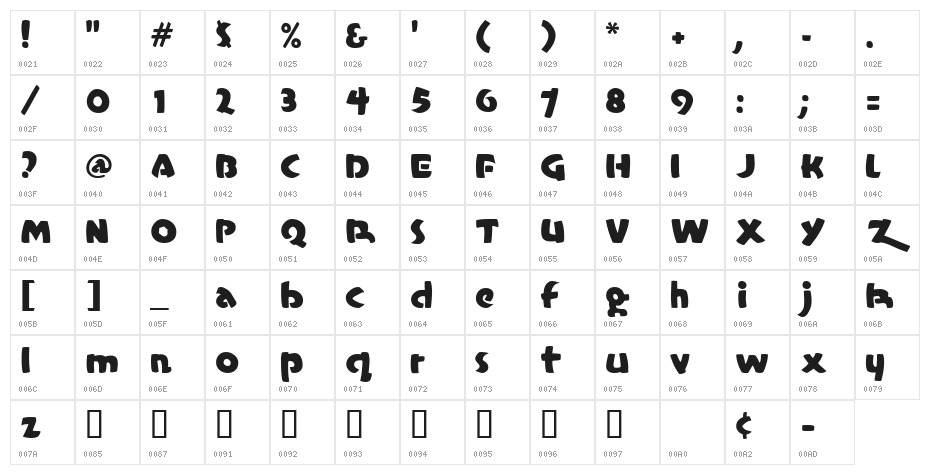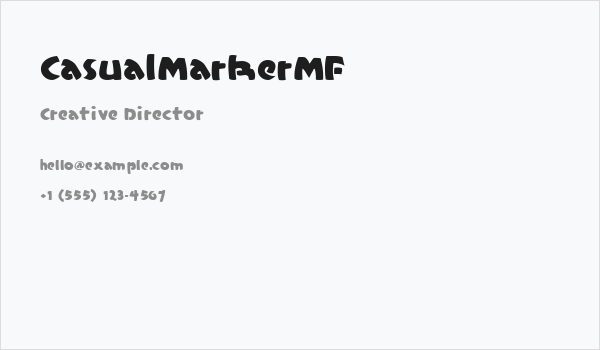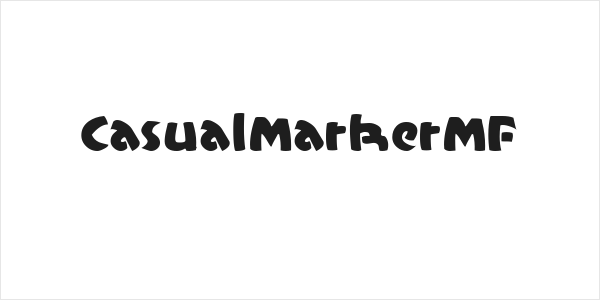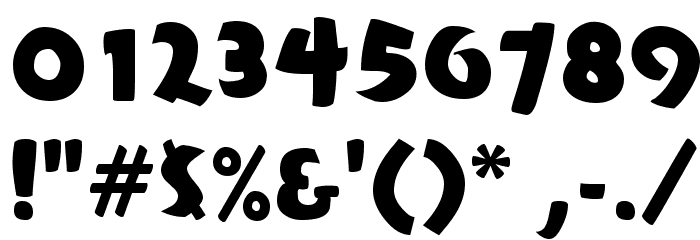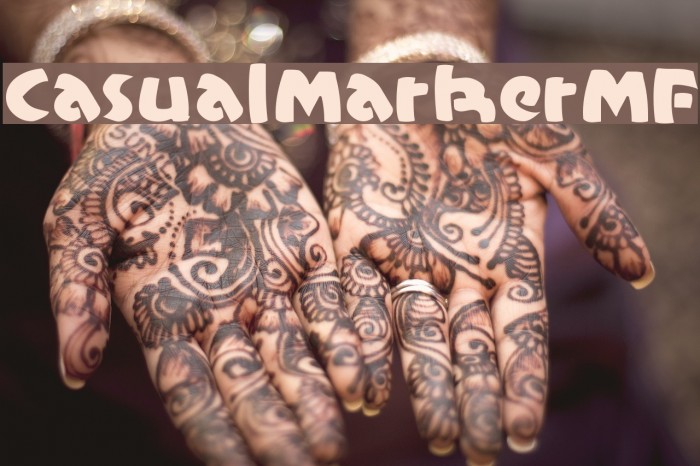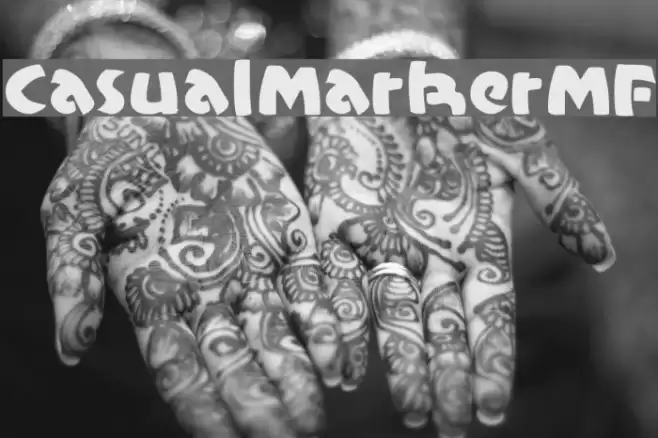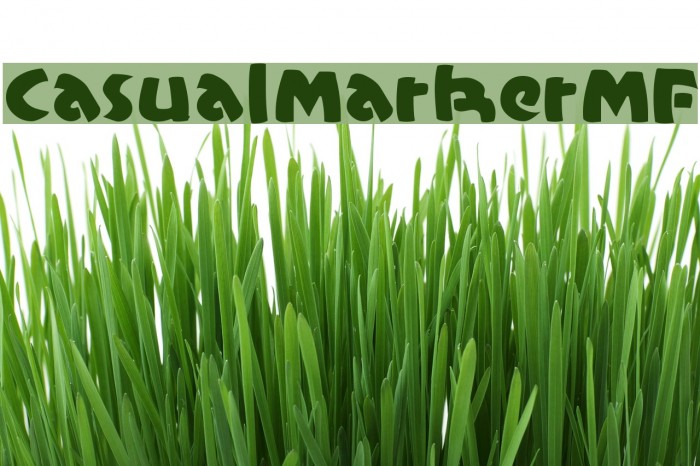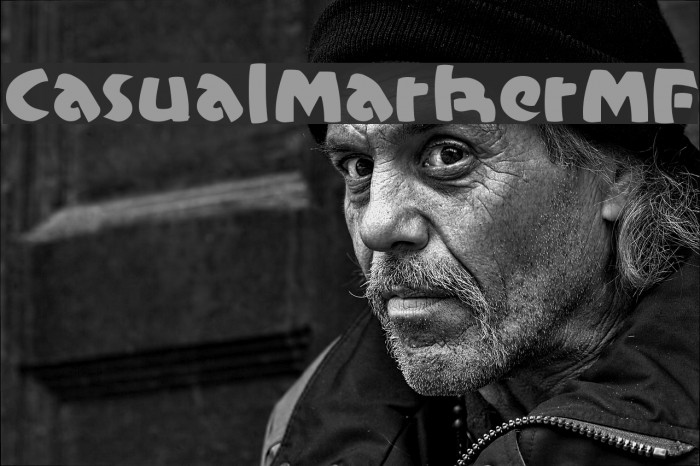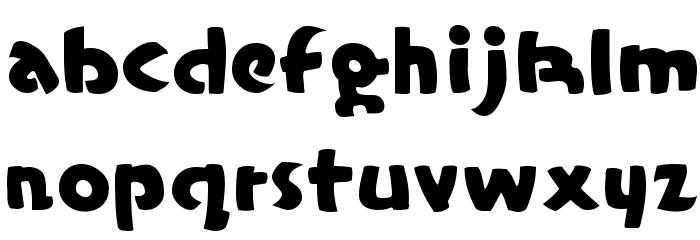
CasualMarkerMF Font
CasualMarkerMF Description
This font exudes a playful and informal vibe, characterized by its bold and slightly irregular strokes that mimic the look of hand-drawn letters. The characters have a whimsical, almost cartoonish appearance, with rounded edges and a consistent thickness throughout. The uppercase letters are bold and prominent, while the lowercase letters maintain a similar style but with a slightly more relaxed form. The numbers and special characters follow the same playful design, making them suitable for creative and casual applications. The overall aesthetic is approachable and friendly, making it ideal for projects that require a touch of personality and fun.
| Overall Style | Casual, Playful |
| Proposed Projects | Ideal for children's books, playful branding, casual invitations, and creative posters. |